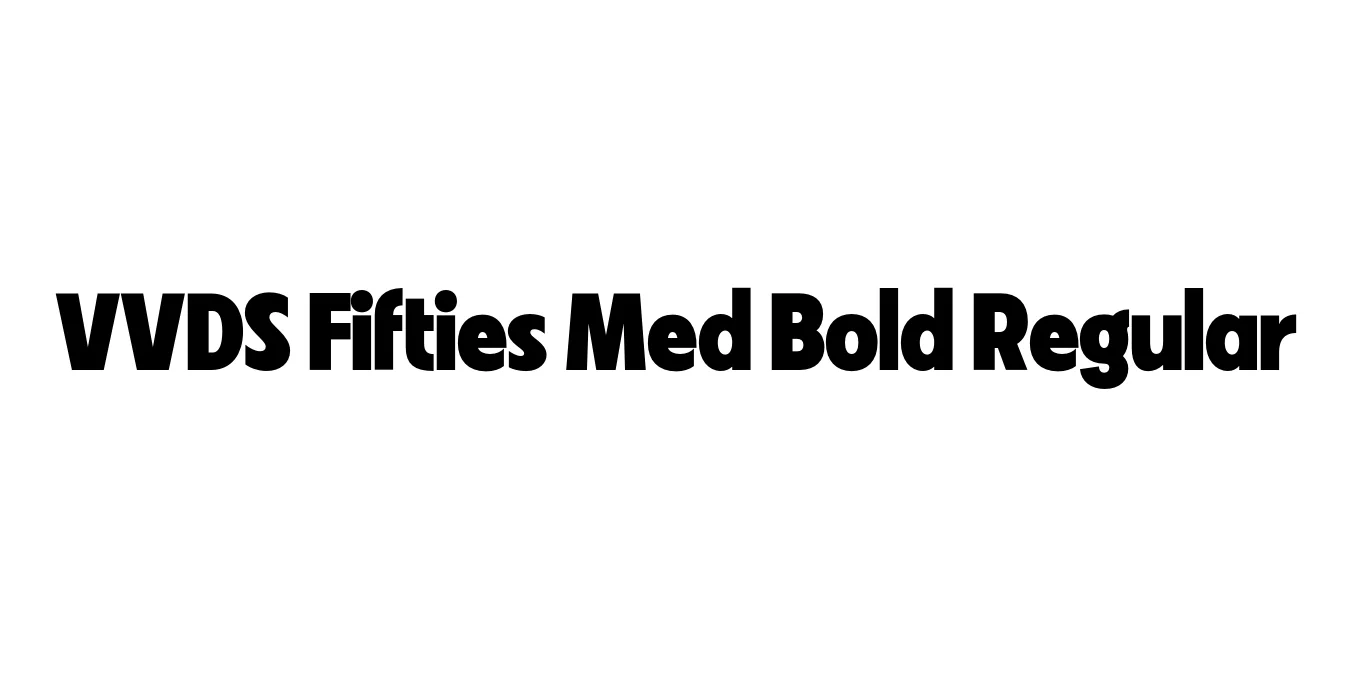
VVDS Fifties Med Bold Regular
Designed by Pavel Korzhenko (Vintage Voyage Design Supply)
VVDS Fifties Med Bold Regular is a distinguished member of the larger Fifties typeface family, meticulously crafted to evoke the spirit of mid-century graphic design. Inspired by the golden age of advertising and the geometric purity of the 1950s, this font strikes a perfect balance between nostalgic charm and contemporary precision. Developed by Pavel Korzhenko, the weight is designed to provide a solid visual anchor while maintaining a high degree of legibility across various media formats.
The typeface features clean, structured lines with subtle curves that lend it a friendly yet authoritative personality. Unlike many strictly geometric sans-serifs, VVDS Fifties Med Bold Regular incorporates humanist nuances that make it ideal for high-impact communication. It excels in environments where a retro aesthetic is desired without appearing dated, making it a versatile tool for designers looking to blend historical elegance with modern functionality.
VVDS Fifties Med Bold Regular Best Uses
Ideal for bold, eye-catching mid-century style posters and print ads.
Perfect for creating timeless logos and corporate identity systems.
Great for vintage-themed product labels and consumer goods packaging.
Excellent for headers and sub-headers in magazines or book layouts.